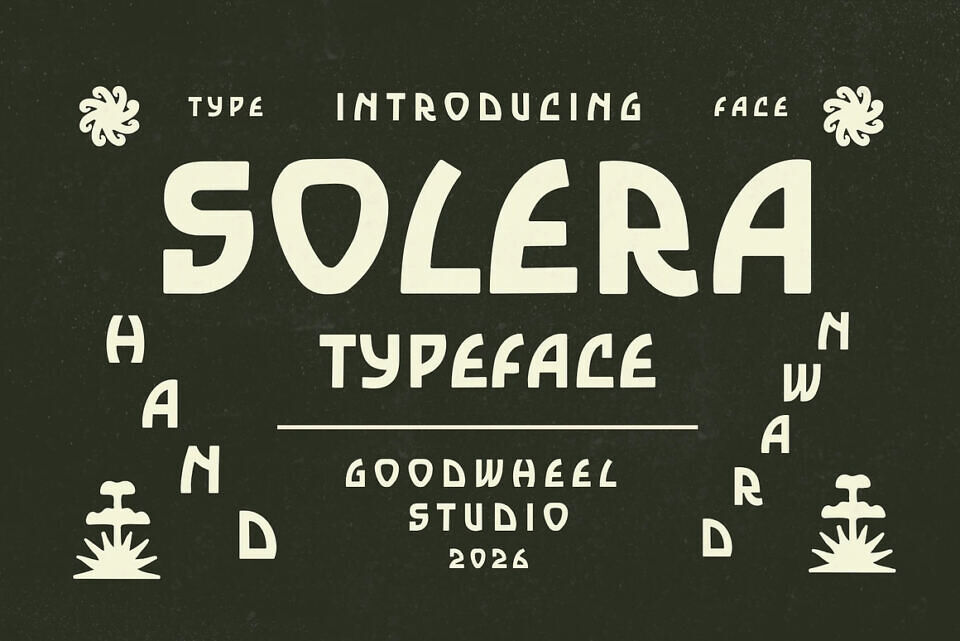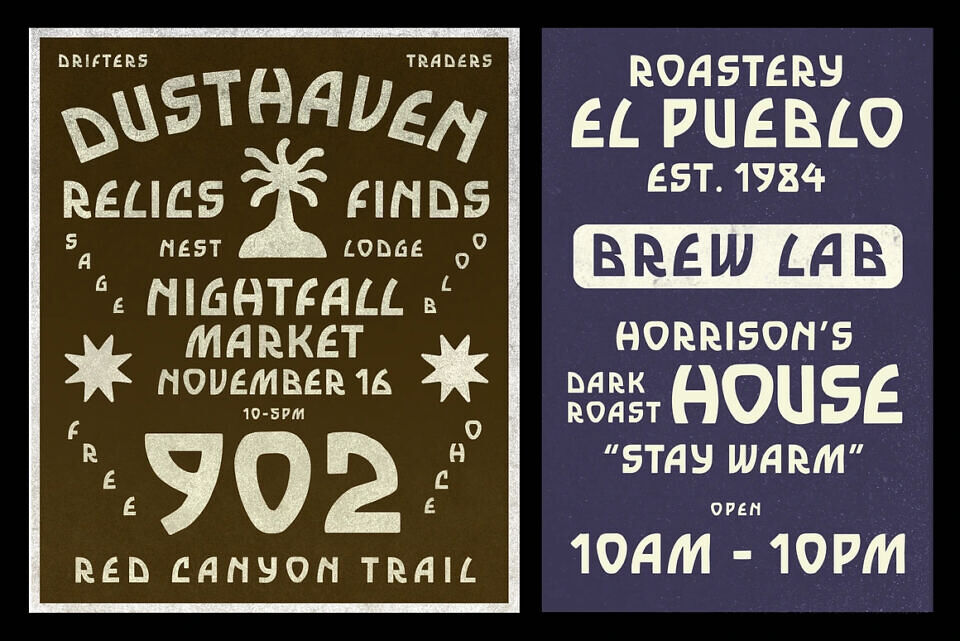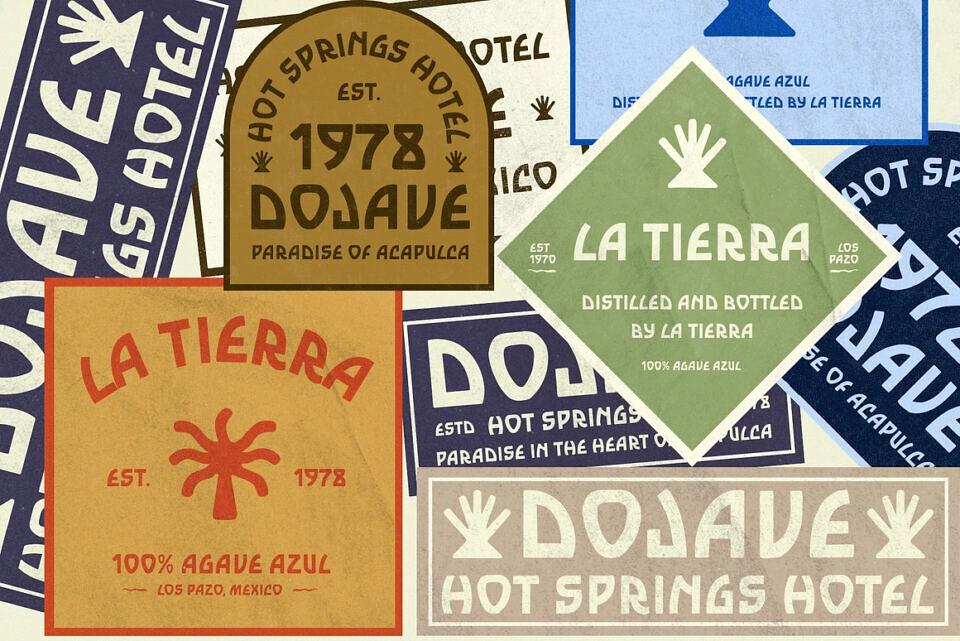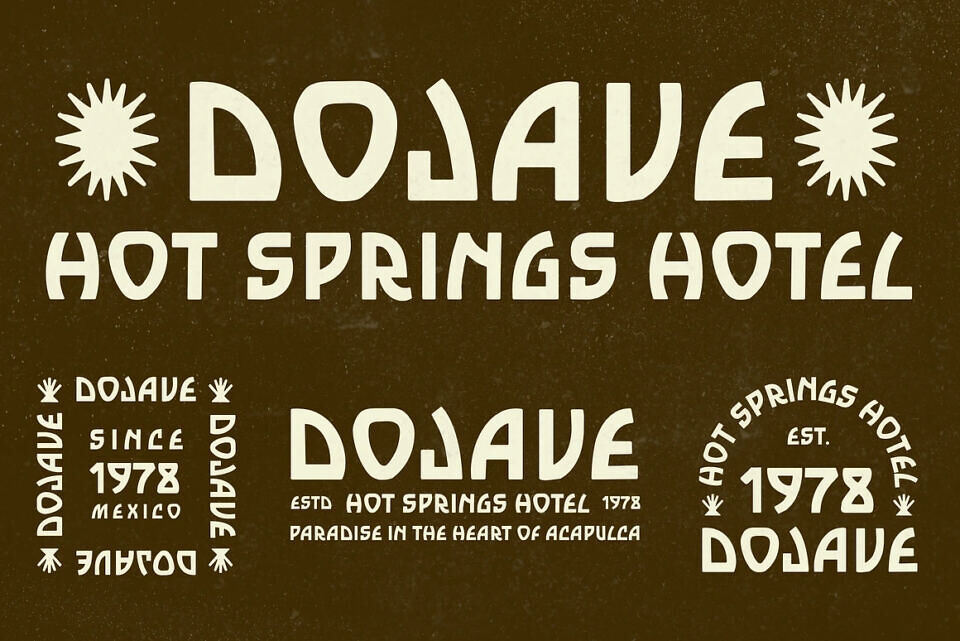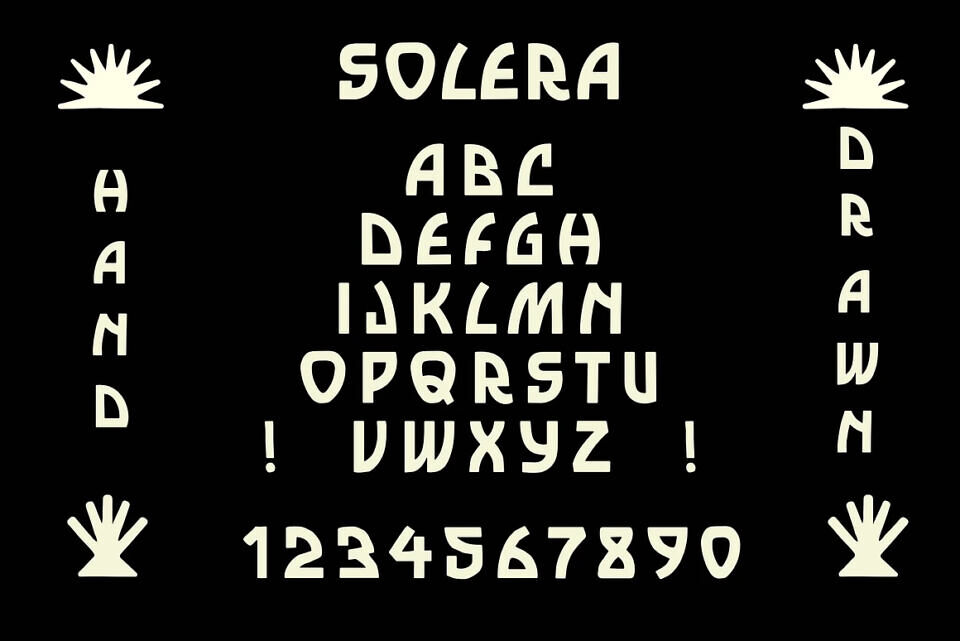
Solera Font
Solera is a bold handcrafted display font inspired by folk art, sun-drenched landscapes, and vintage cultural graphics. Its distinctive letterforms combine geometric structure with playful organic curves, creating a unique balance between retro character and contemporary design.
Every glyph is carefully crafted with unconventional cuts and rounded edges, giving the font a warm, artistic, and approachable personality. Solera is perfect for branding, packaging, logos, posters, restaurant identities, café menus, artisan products, and creative editorial layouts.